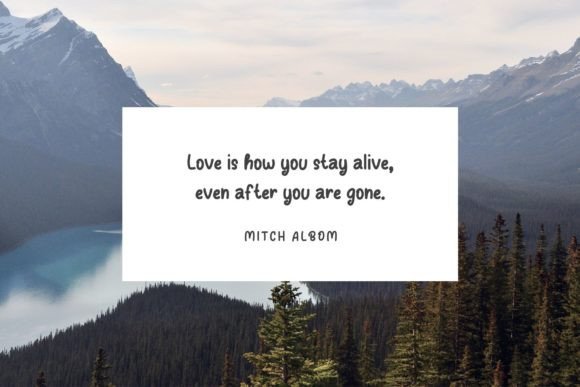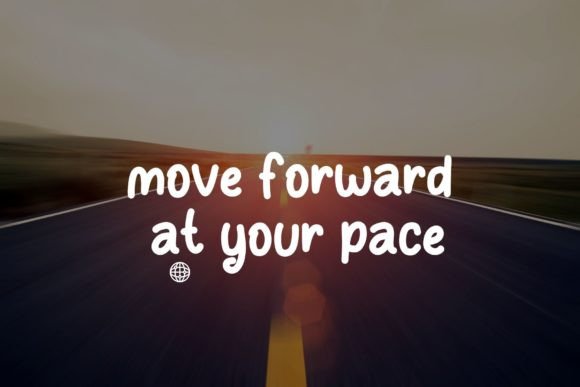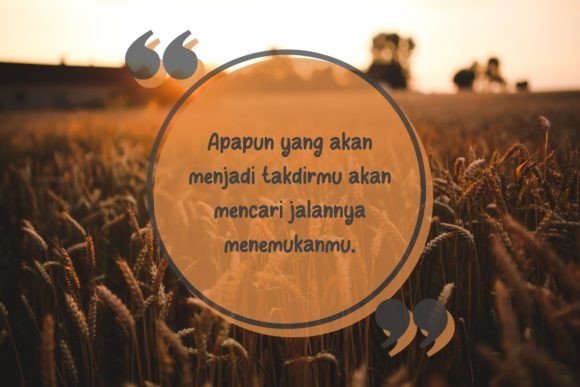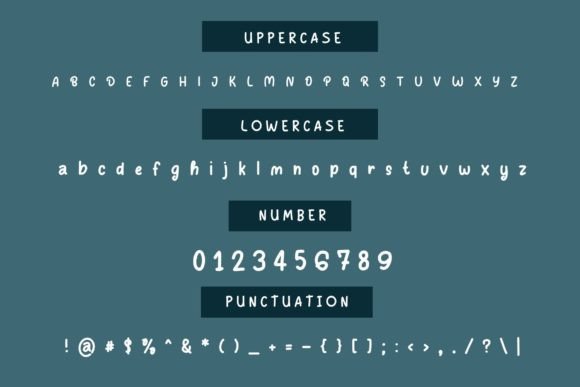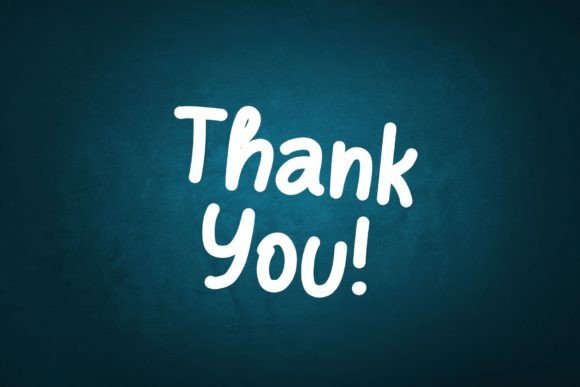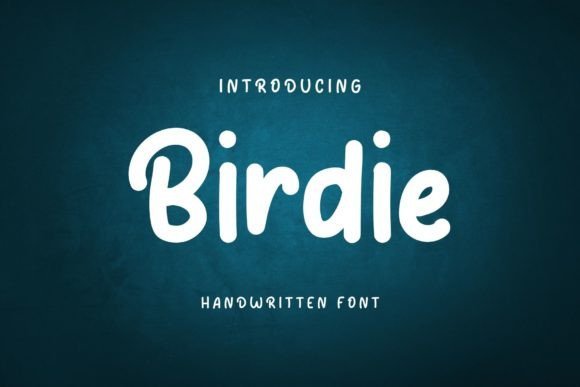
When Words Come Alive
Have you ever been scribbling down ideas in a notebook, only to have a moment of pure creative bliss? The words flow effortlessly, and the design starts to take shape in your mind. This is exactly what happens when you add the right touch to your projects – and for many designers, that touch is the Birdie Font.
Birdie Font is a charming handwritten font that exudes playfulness and authenticity. It’s perfect for a wide range of projects, from blog posts and logos to invitations and photo albums. Whether you’re looking to add a personal touch or simply want to elevate your designs, Birdie Font is an excellent choice. Its versatility and charm make it a valuable addition to any designer’s toolkit.
Birdie Font Key Features
- Font Family: Birdie Font is a sans-serif typeface designed to evoke a sense of playfulness and whimsy.
- Size: Birdie Font comes in 6 weights (Thin, Light, Regular, Medium, Bold, and Black) to cater to different design needs.
- Unique Characteristic: Birdie Font features a unique rounded shape and subtle rounded edges, making it perfect for creating a friendly and approachable atmosphere in designs.
- Language Support: Birdie Font includes support for a wide range of languages, including Latin, Cyrillic, and Greek scripts.
Review of Birdie Font
Overall, I think the Birdie Font has some great qualities that make it a solid choice for designers. ✨ It’s playful, yet elegant, and the rounded edges give it a friendly feel that’s perfect for kid-friendly materials or creative projects. ✨ The font is also highly customizable, allowing designers to adjust the weight, style, and even add special effects to make it stand out.
However, there are some limitations to consider. ⚠️ One major issue is that the font can be quite dense, which may make it difficult to read at smaller sizes. ⚠️ Additionally, the font doesn’t have a strong vertical axis, which can make it look a bit uneven or sloppy in certain layouts. ⚠️ Finally, while the font is highly customizable, it can be a bit overwhelming to navigate all the options and settings.
Ultimately, I think the Birdie Font is a great choice for designers who want a fun, playful font that’s easy to customize. However, it may not be the best choice for projects where readability is a top priority or where a more formal, professional look is needed.
- Playful, yet elegant design
- Rounded edges for a friendly feel
- Can be adjusted for weight, style, and special effects
Tips for Getting the Most Out of the Birdie Font
For the best results, use the Birdie Font in combination with bright and pastel colors to create a playful and whimsical look.
Experiment with different font sizes and combinations to add visual interest to your design.
The Birdie Font is perfect for:
Children’s book illustrations
Branding and marketing materials for playful and creative businesses